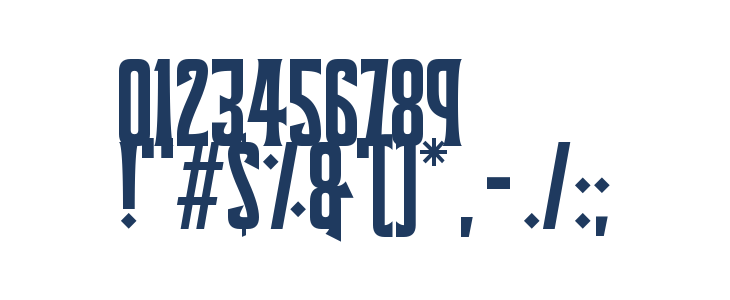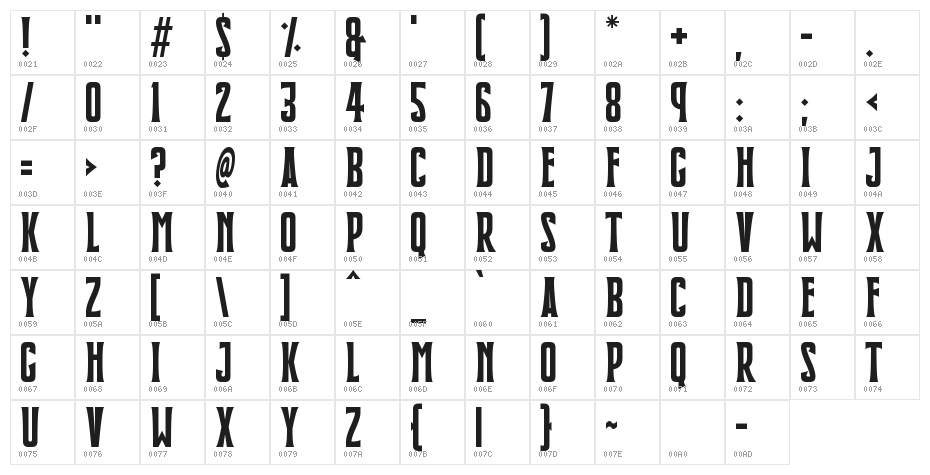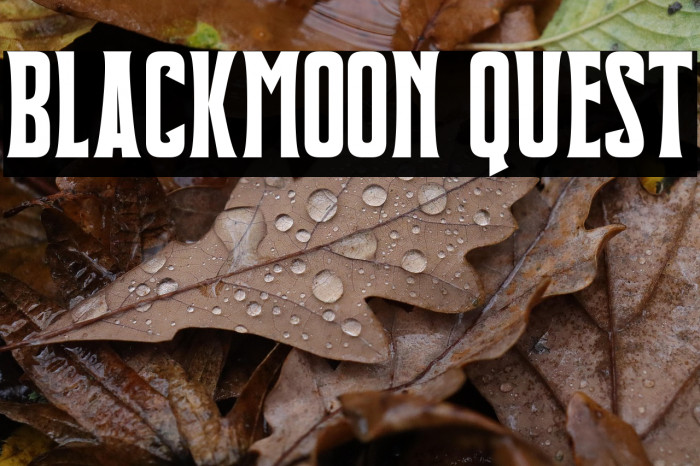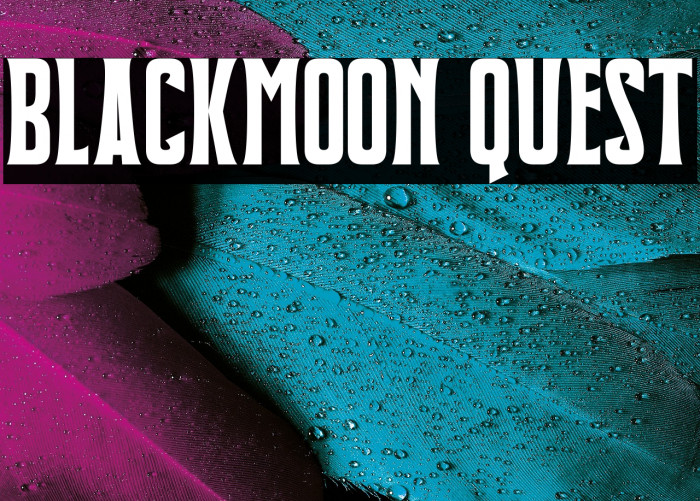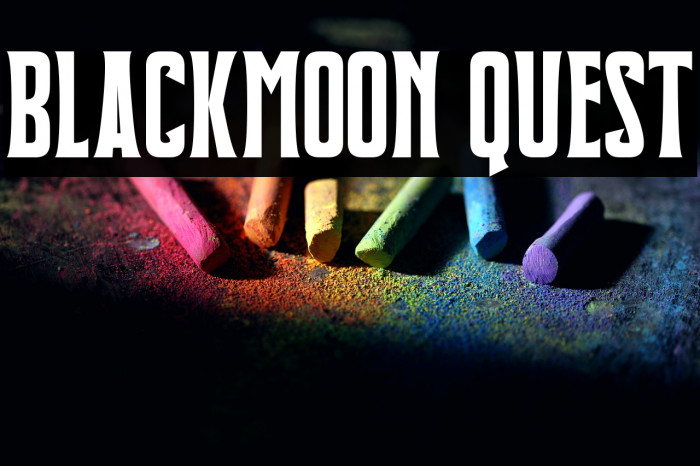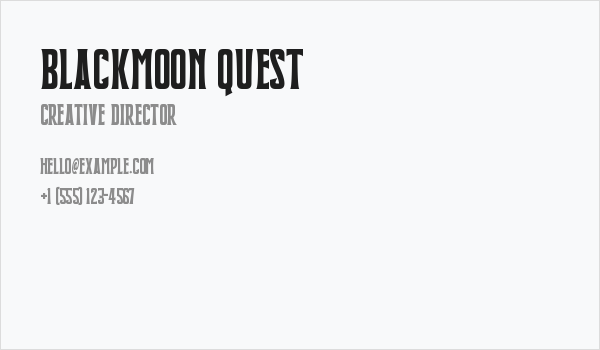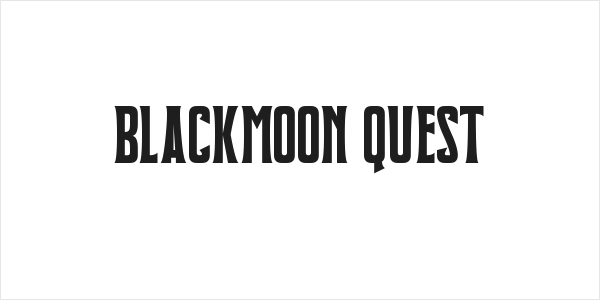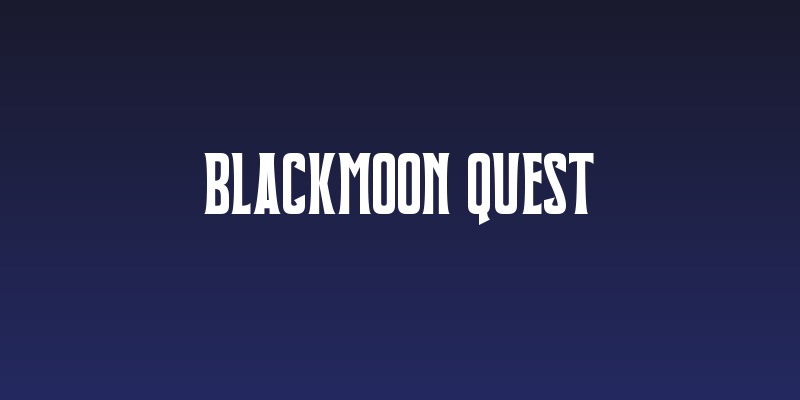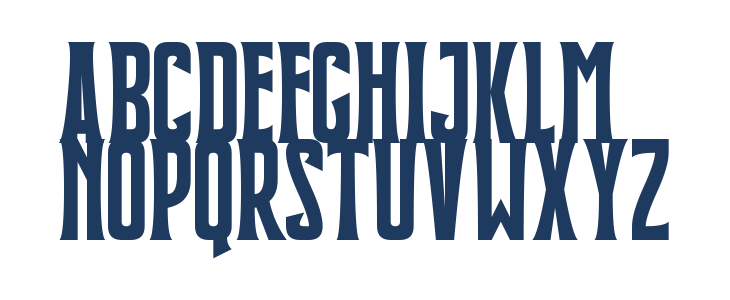
Blackmoon Quest Font
Blackmoon Quest Description
This font features a bold and striking design with tall, narrow characters that convey a sense of drama and intensity. The uppercase letters are particularly elongated, giving the typeface a unique and eye-catching appearance. The strokes are thick and consistent, with sharp angles and minimal curves, contributing to a modern and edgy aesthetic. The numbers and special characters maintain this bold style, ensuring uniformity across all glyphs. This font is ideal for projects that require a strong visual impact, such as posters, headlines, and branding materials.